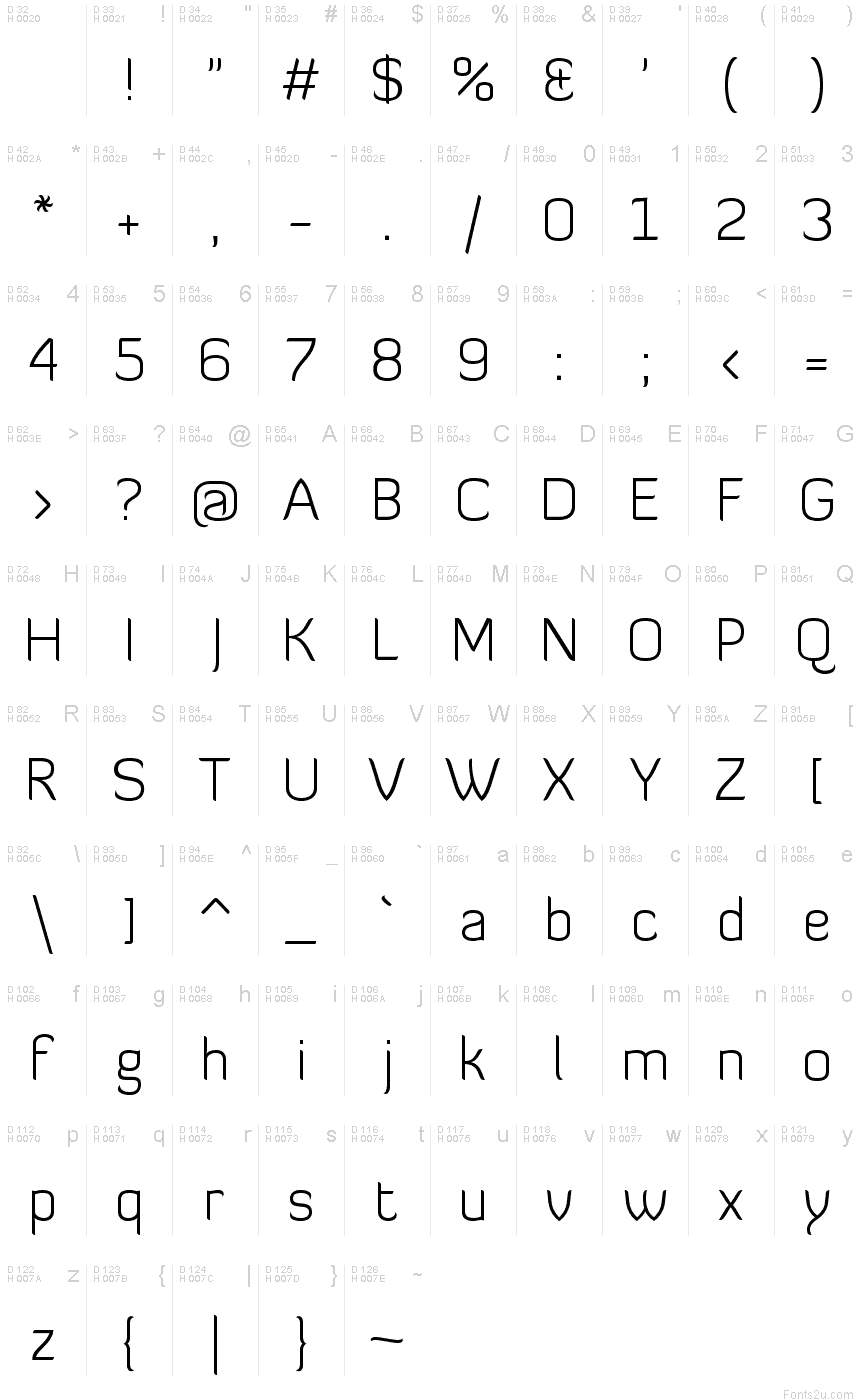
Review Of Diavlo Light Regular Font Download Ideas
Review Of Diavlo Light Regular Font Download Ideas. Web the diavlolight regular font is a great choice to increase the prominence in your project. Web download diavlo bold regular font with bold style.
Web Diavlolight Regular Is The Perfect Font For All Your Fun Designs.
Diavlo light regular by copyright c 2007 by jos buivenga all rights reserved copyright (c) 2007 by jos buivenga. Web download diavlo light regular font with light style. Web download diavlo bold regular font with bold style.
Light, Book, Medium, Bold And Black.